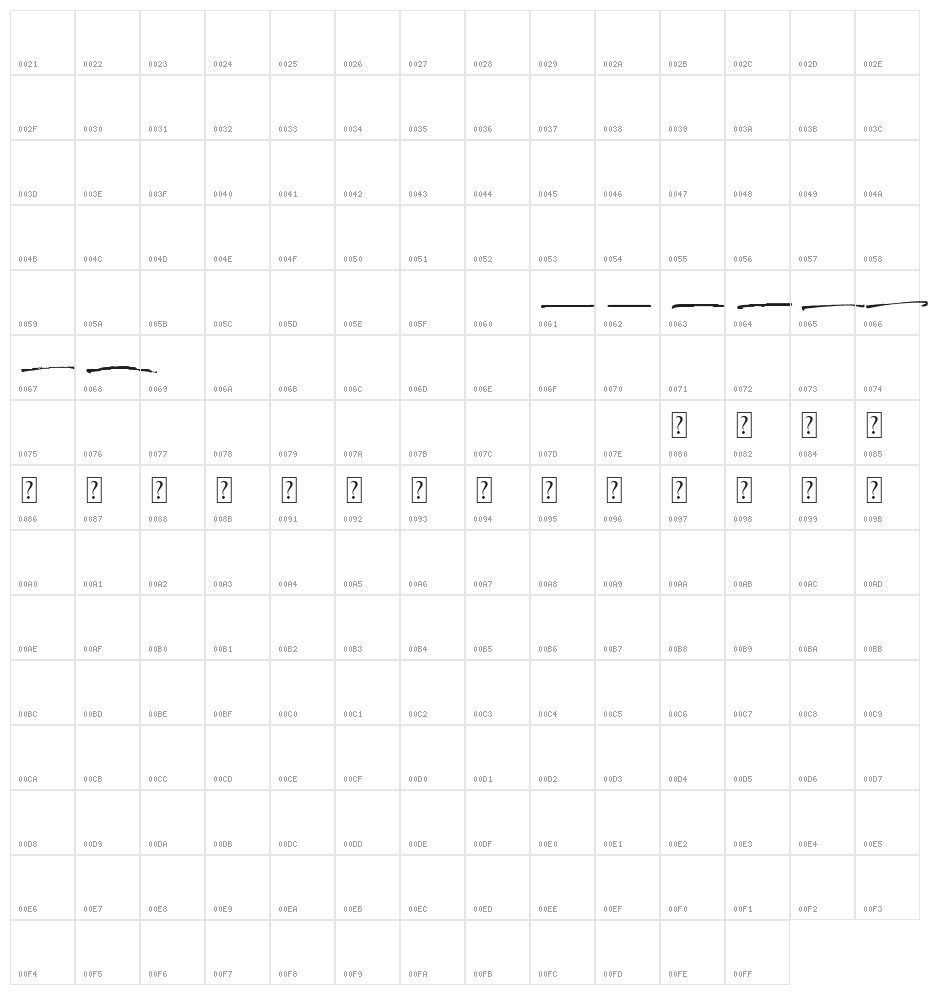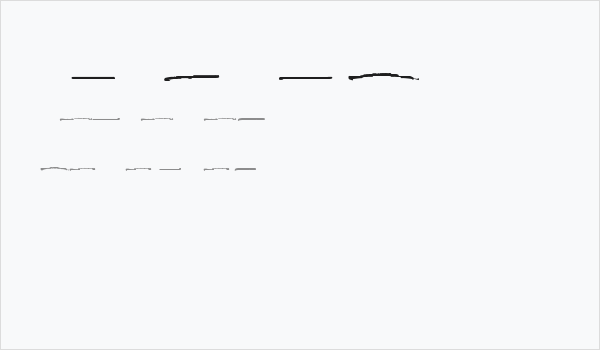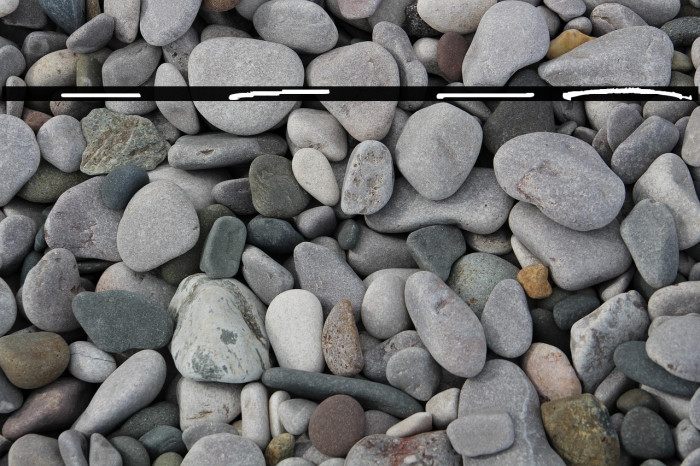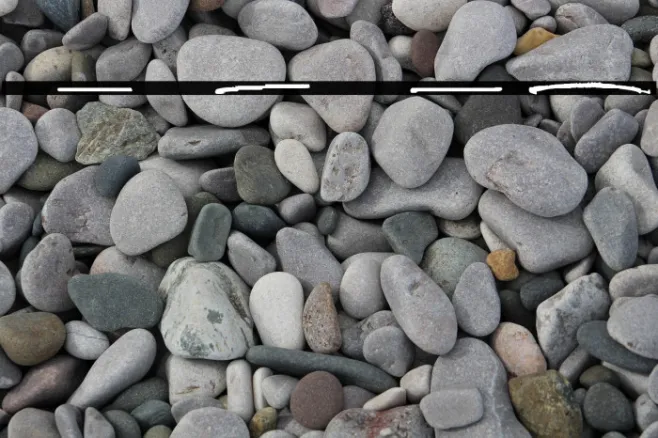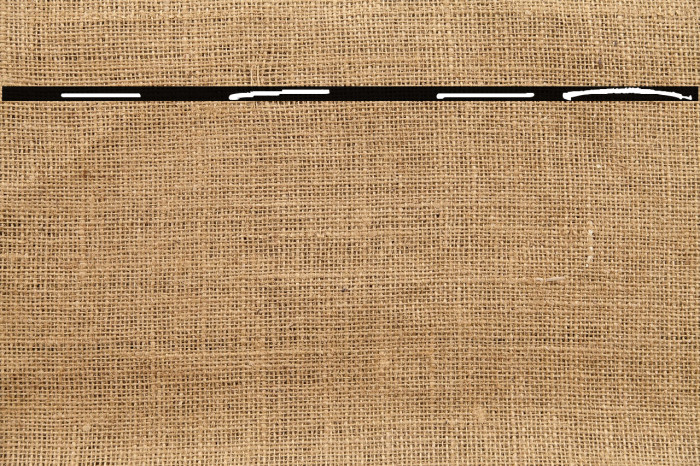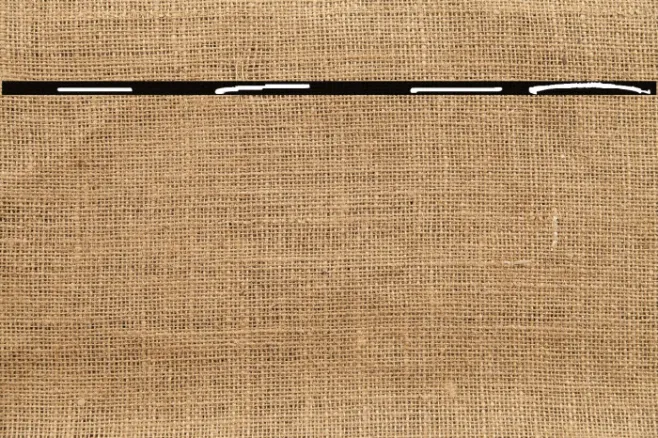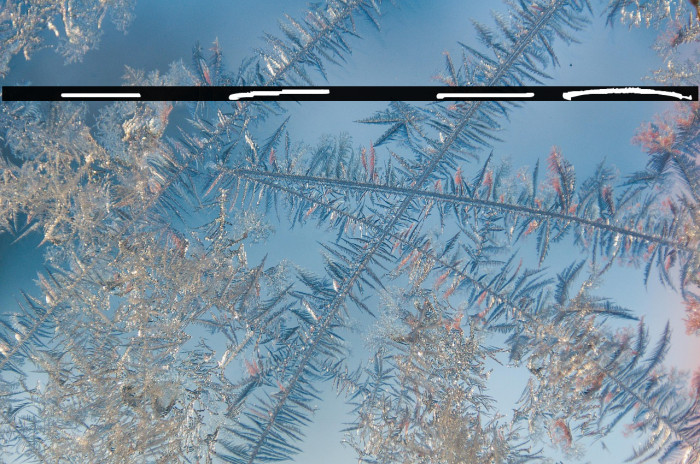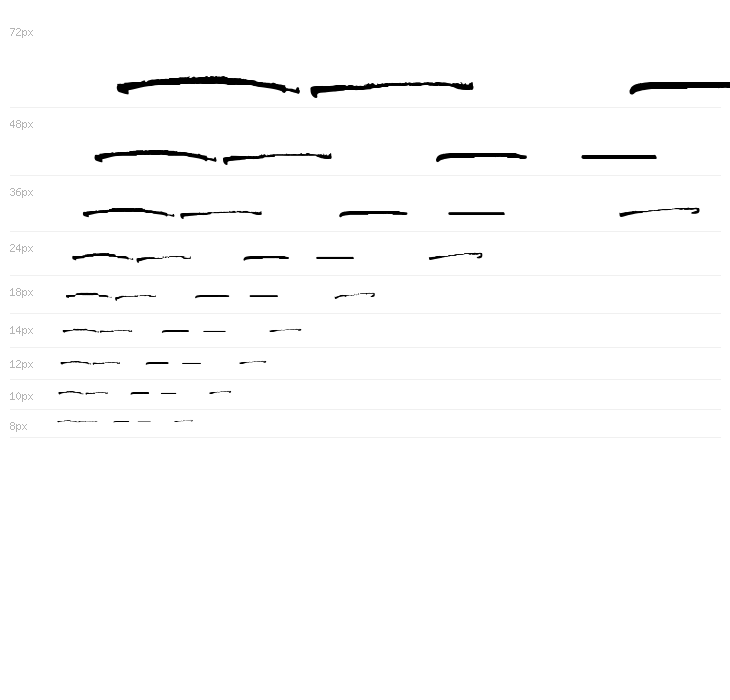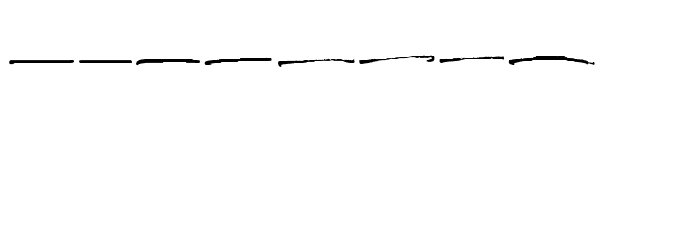
Obsurd Swash Font
Obsurd Swash Description
This font features a whimsical and playful design with exaggerated swashes and curves. The strokes are uneven, giving it a hand-drawn appearance that adds a unique character to each letter. The overall style is decorative, making it stand out with its artistic flair. The font's irregularity and flowing lines create a sense of movement and creativity, perfect for projects that require a touch of individuality and artistic expression.
| Use Case | Logos, Headlines, Artistic designs |
| Proposed Projects | Ideal for creative projects such as invitations, greeting cards, posters, and artistic branding. |